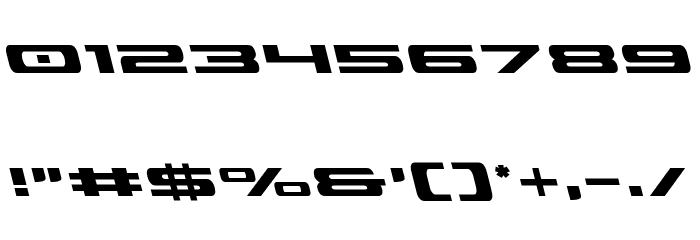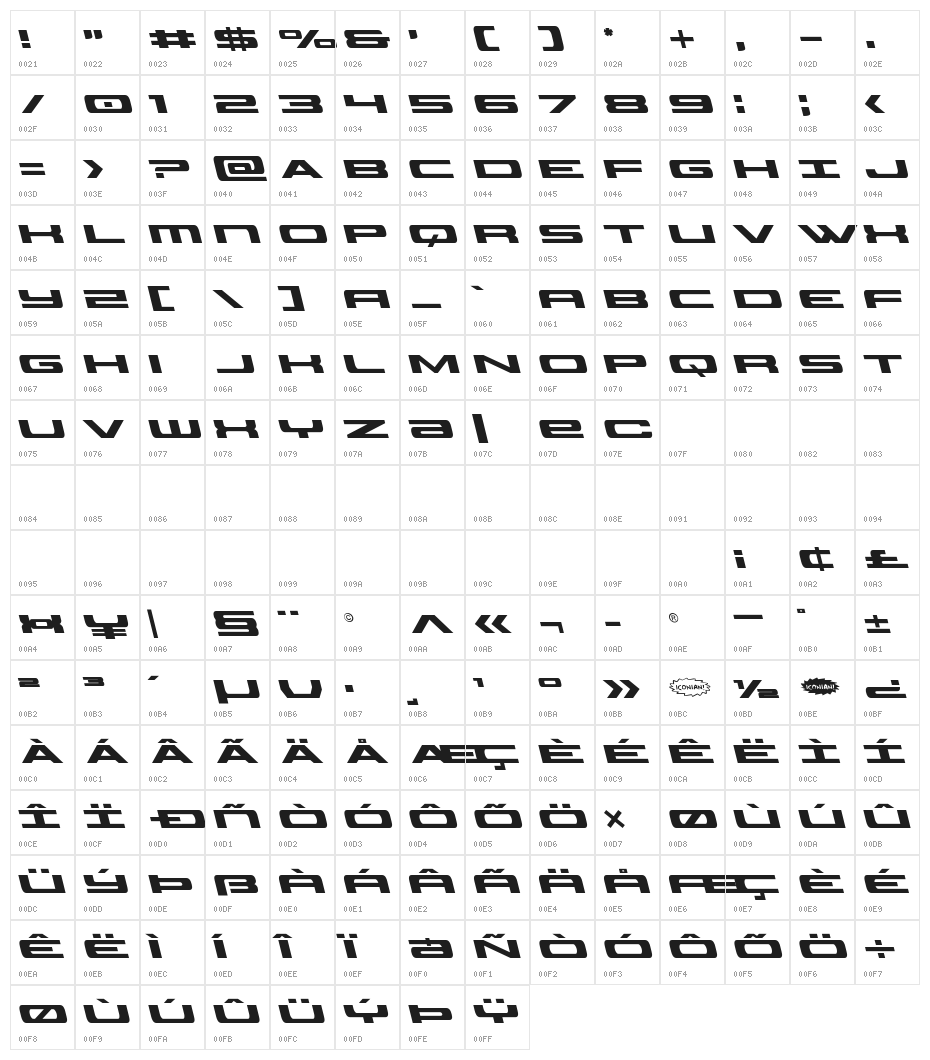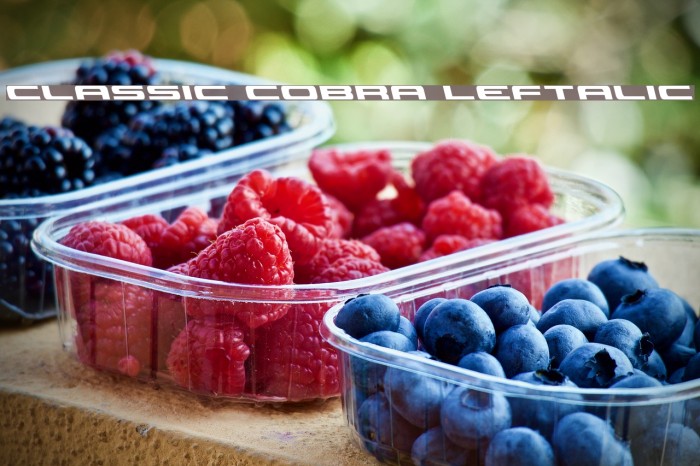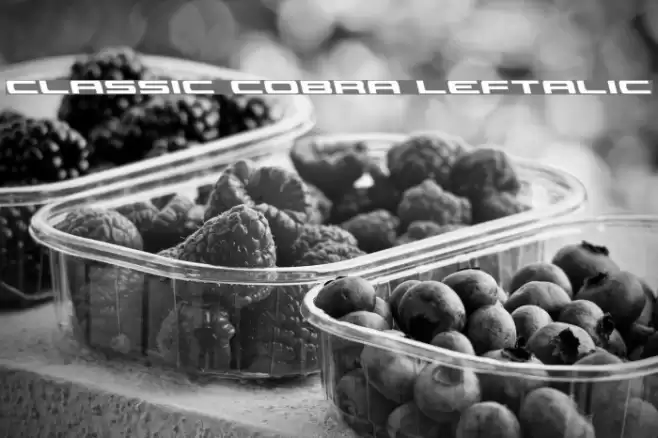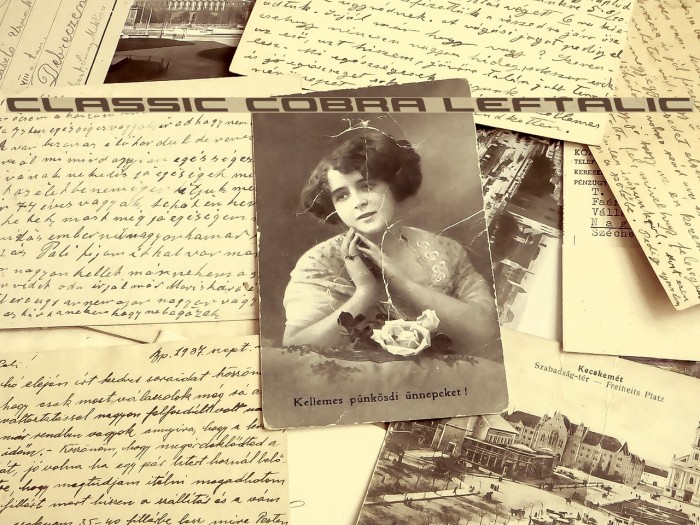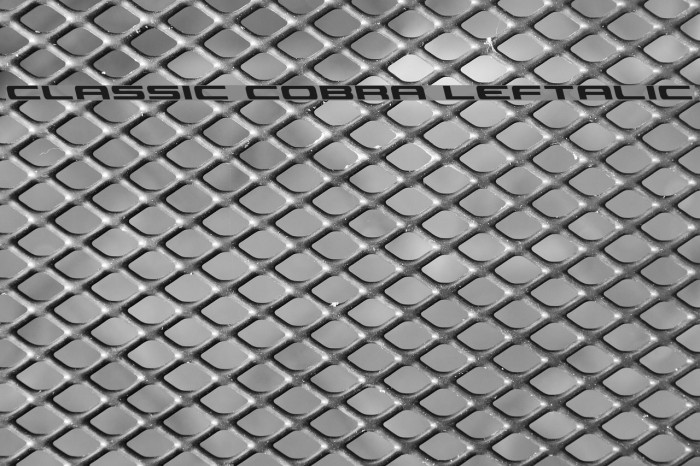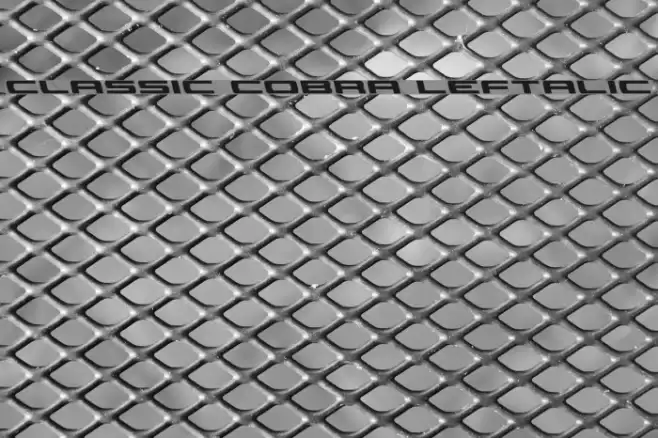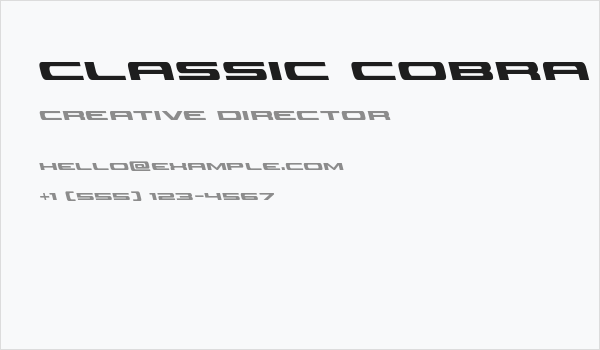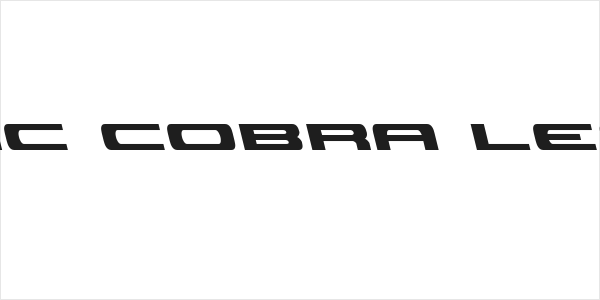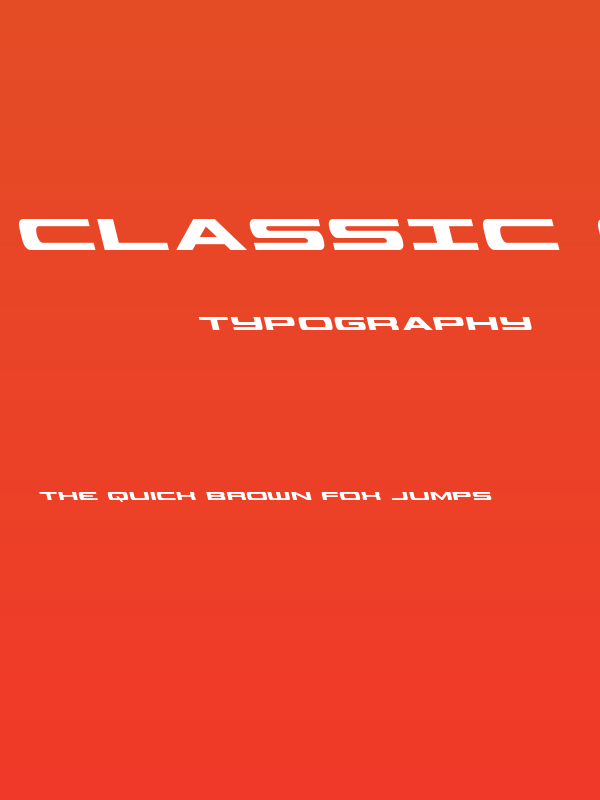
Classic Cobra Leftalic Font
Classic Cobra Leftalic Description
This font features a bold, futuristic design with a distinct slant, giving it a dynamic and forward-moving appearance. The characters are wide and geometric, with sharp angles and a consistent stroke width that conveys a sense of strength and modernity. The uppercase letters are particularly striking, with a uniform height and a slightly condensed form that enhances readability while maintaining a unique style. The numerals and special characters follow the same design principles, ensuring a cohesive look across all text elements. This font's bold presence makes it ideal for impactful headlines and attention-grabbing designs.
| Proposed Projects | Ideal for sci-fi themed projects, automotive branding, video game titles, and tech-related advertisements. |